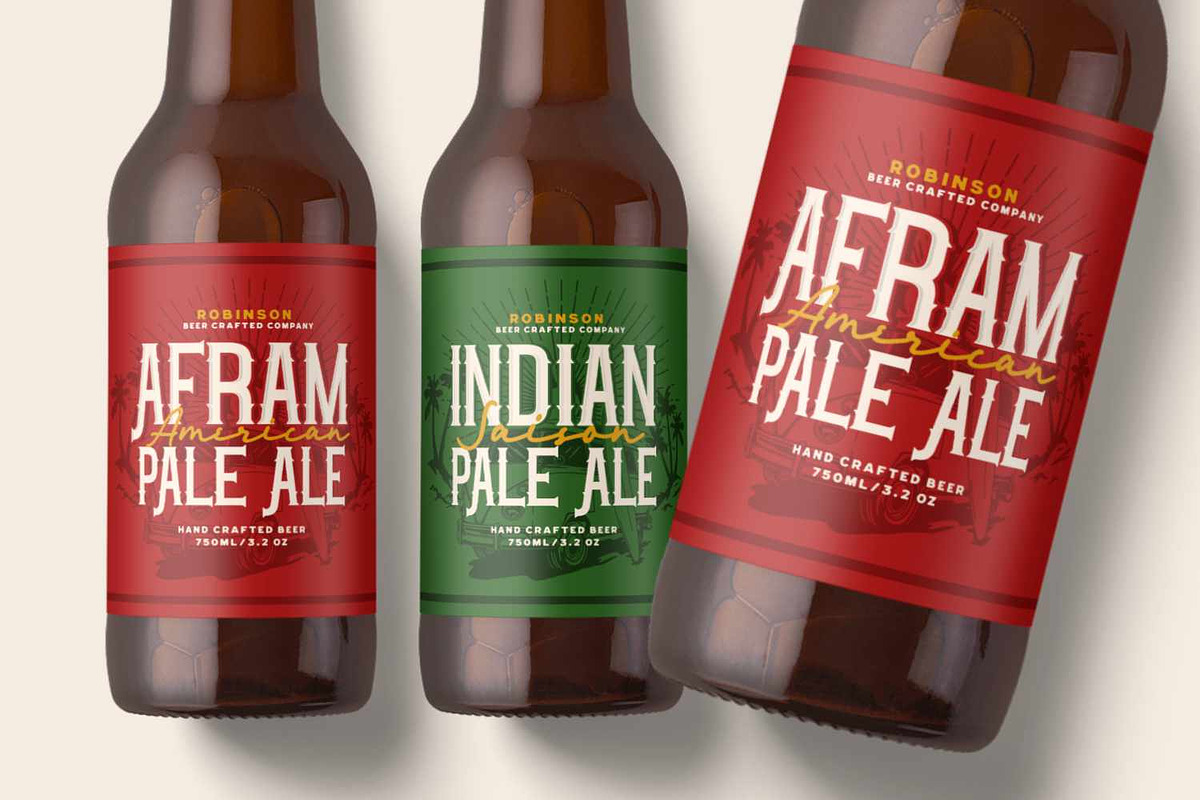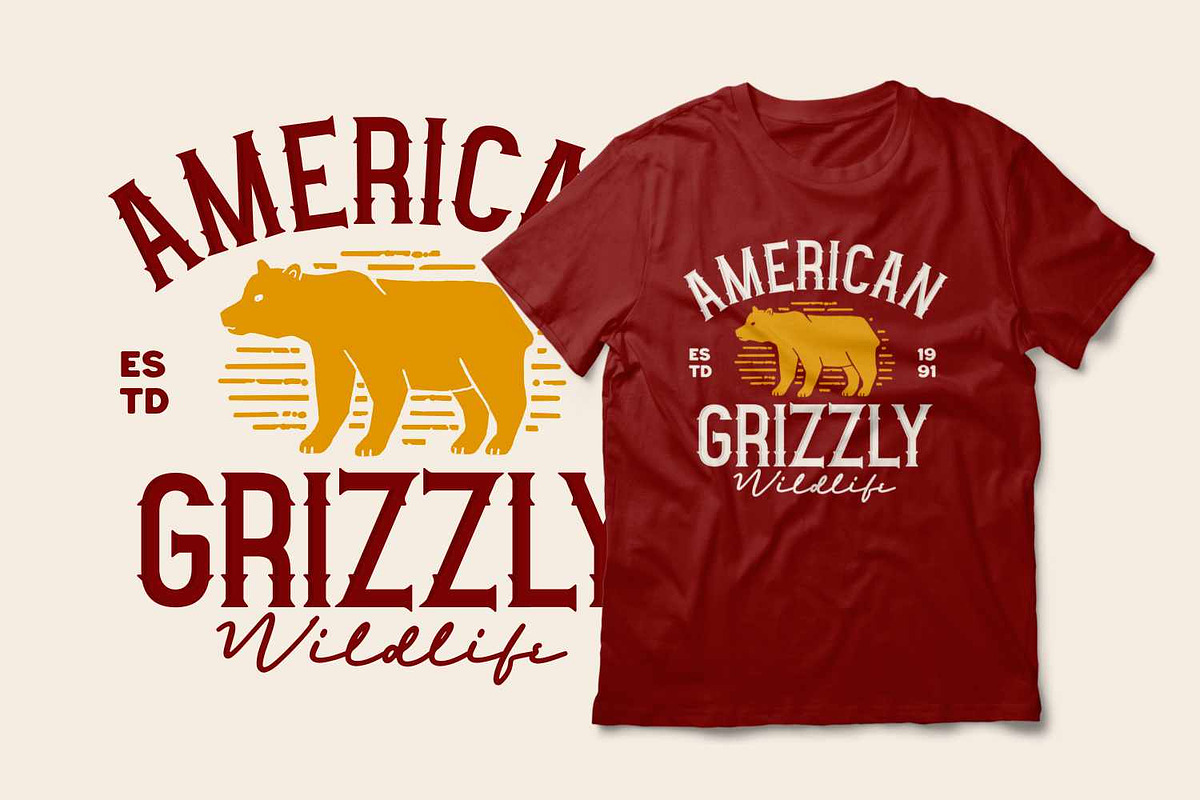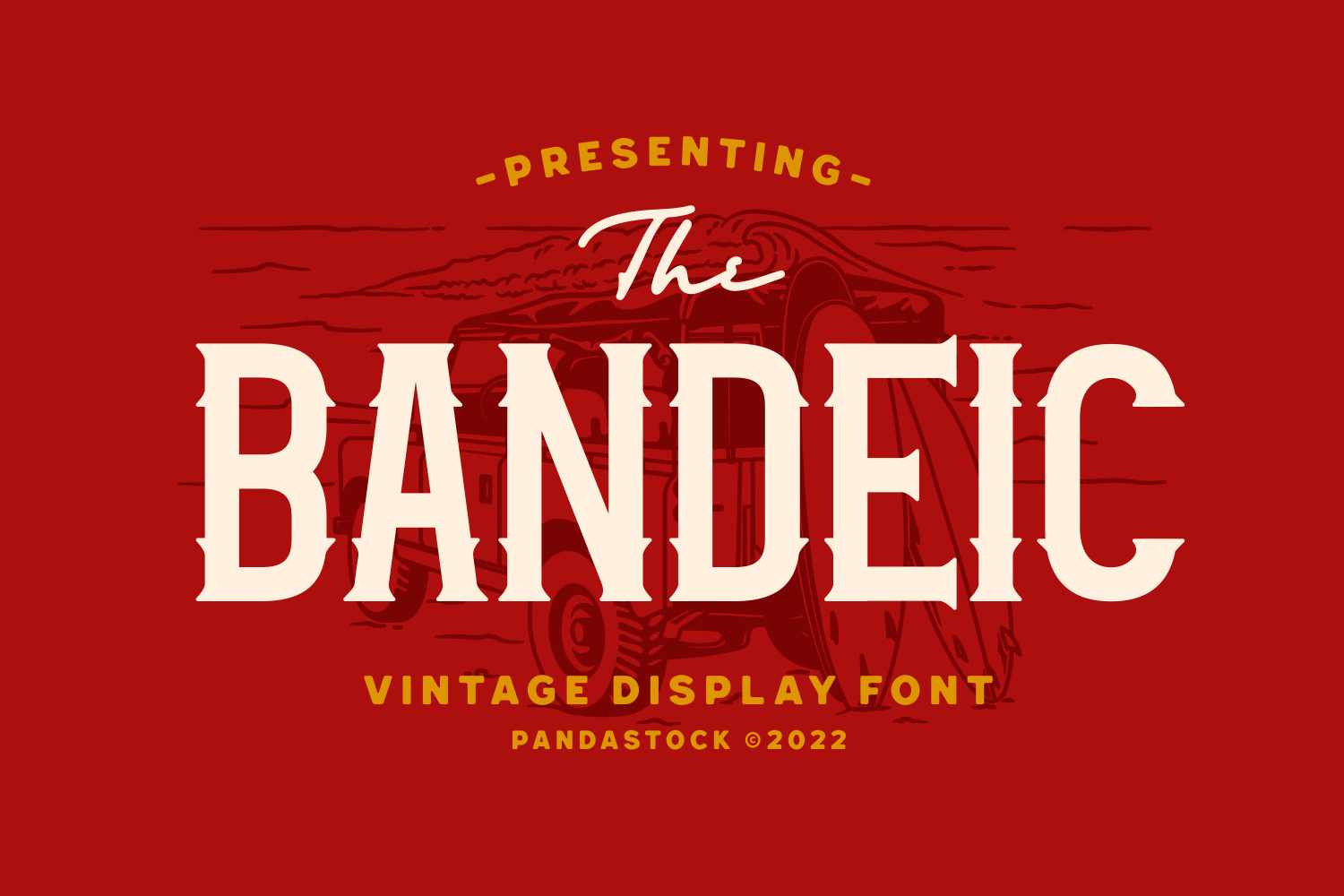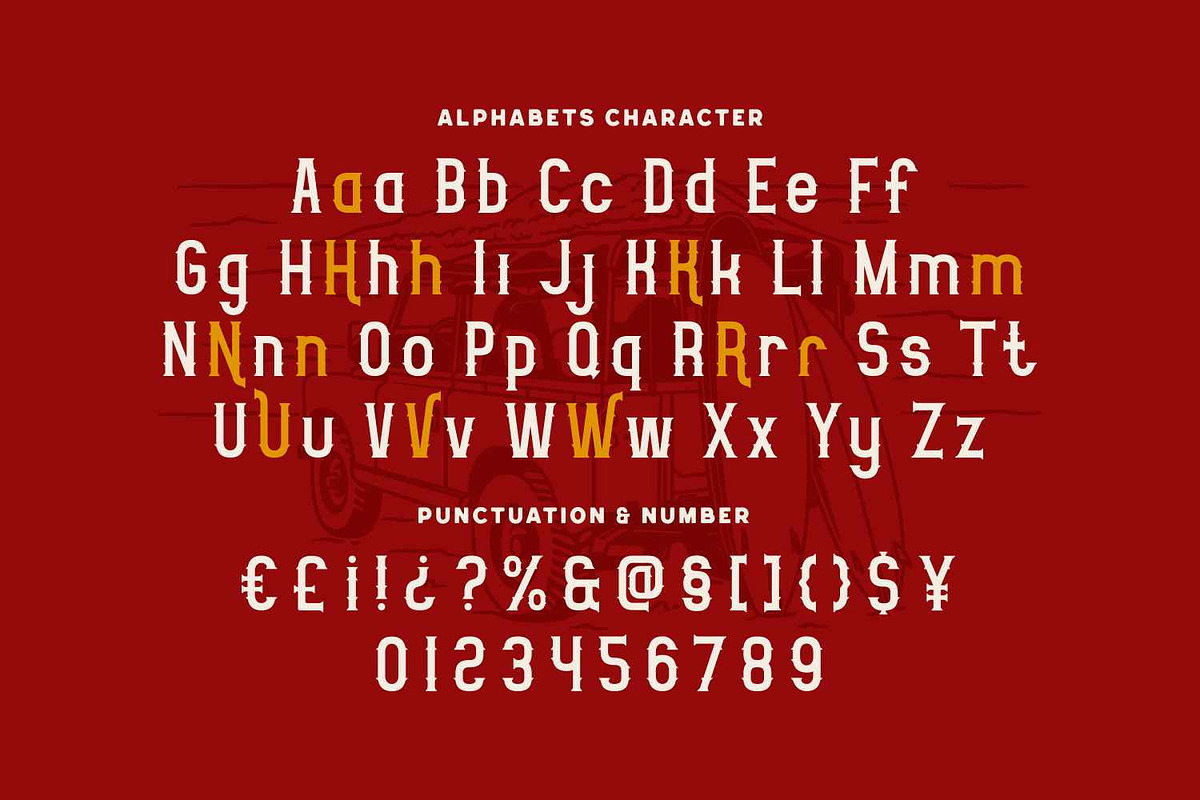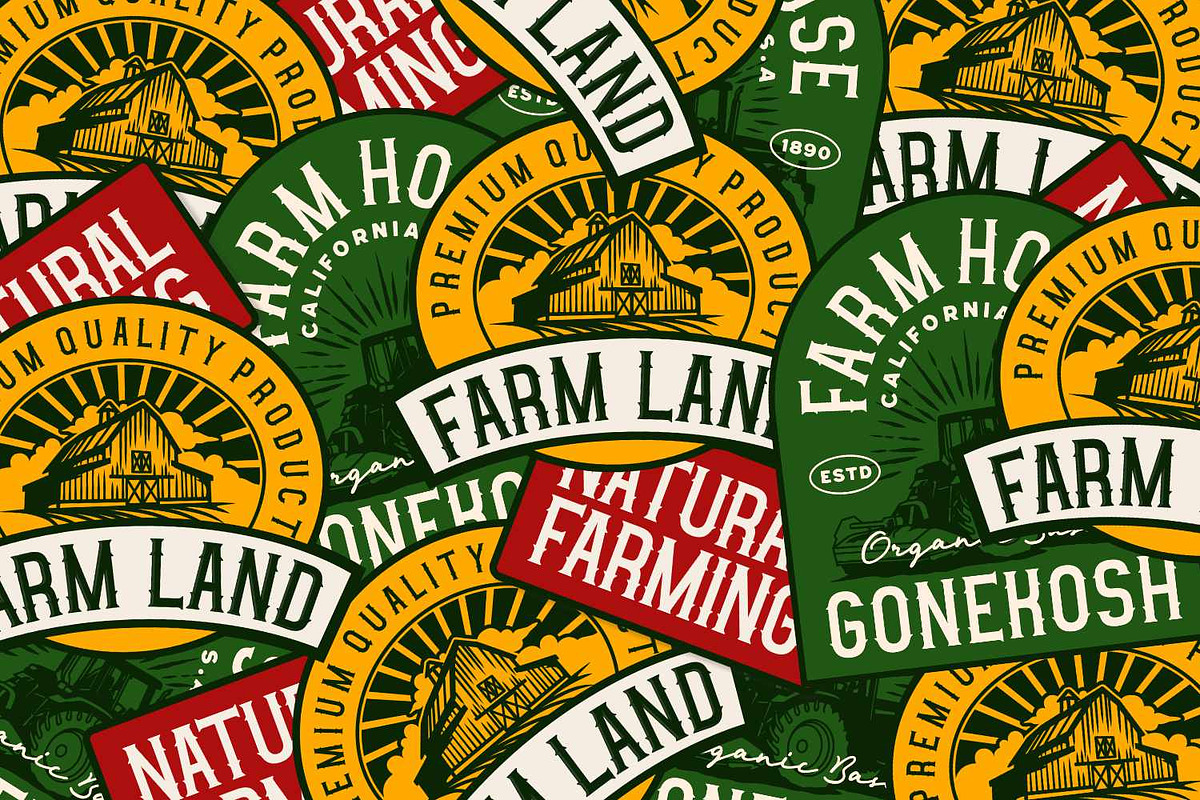
Bandeic - Vintage Serif Typeface
Bandeic is a vintage serif typeface crafted for big, characterful headlines. Its tall, slightly condensed shapes feature wedge serifs and subtle decorative notches that echo antique signage, giving each character a sturdy yet elegant charm. It’s perfect for logos, product packaging, labels, posters, and brands seeking an authentic handcrafted touch.
Capturing the essence of traditional craftsmanship, this typeface is ideal for beverage labels, farm and outdoor badges, posters, packaging, and logos. Bandeic is ready to elevate your next creative project.